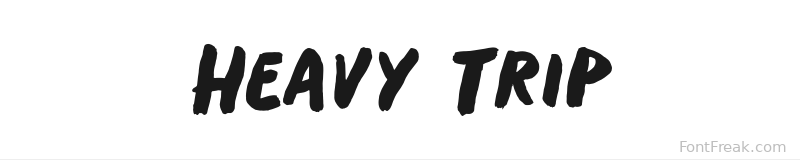
Heavy Trip
Heavy Trip by BLKBK Fonts is a striking display font that embodies a bold and expressive style, perfect for making a statement in any design project. This free-to-download typeface features a heavy stroke weight, with a slightly irregular, hand-drawn quality that adds a unique touch to its overall appearance. The contrast in the letters enhances their visual impact, while the generous spacing allows for clarity and legibility, even at larger sizes.
This versatile font is well-suited for a variety of creative applications. It shines in wedding invitations, where its playful yet bold aesthetic can capture the joyful spirit of the occasion. Movie posters benefit from the font's dramatic presence, drawing attention and setting the tone for the film. Restaurant menus can use Heavy Trip to convey a casual yet trendy vibe, appealing to patrons seeking a memorable dining experience. Additionally, content creators will find this font ideal for social media graphics and promotional materials, as it effortlessly stands out in a crowded digital landscape.
The target audience for the Heavy Trip font includes graphic designers, small business owners, and content creators who are looking to infuse their projects with a sense of personality and flair. Its unique style can help brands convey their identity in a memorable way, making it a valuable asset in any designer's toolkit.
What truly sets the Heavy Trip font apart is its ability to combine boldness with a playful charm. This font not only commands attention but also brings a sense of warmth and approachability to any design. For those interested in enhancing their creative projects, the Heavy Trip font free download offers an excellent opportunity to elevate their work with this distinctive typeface.